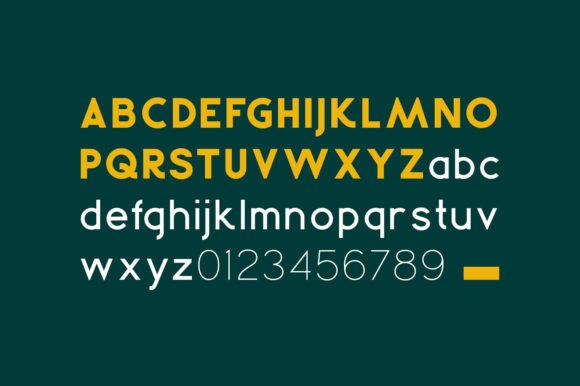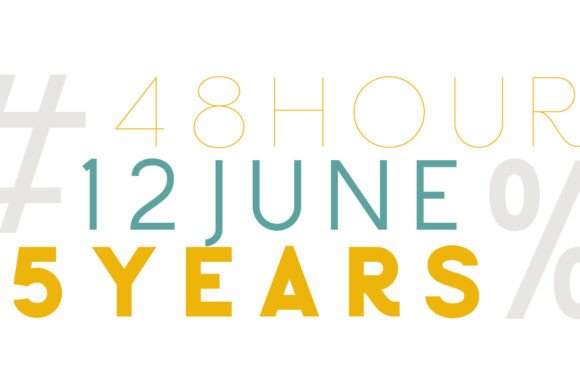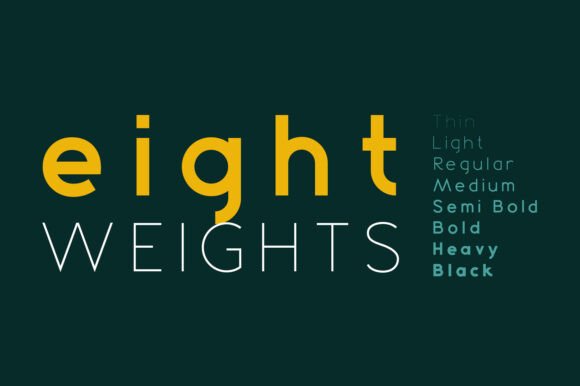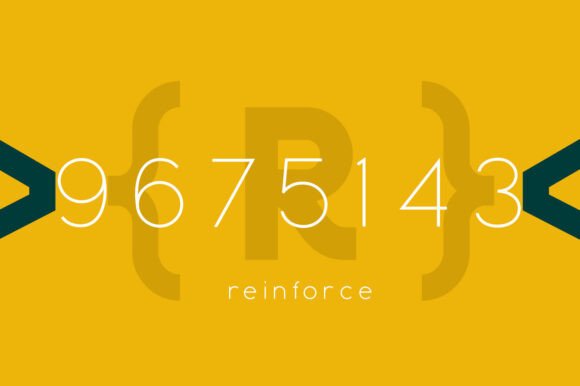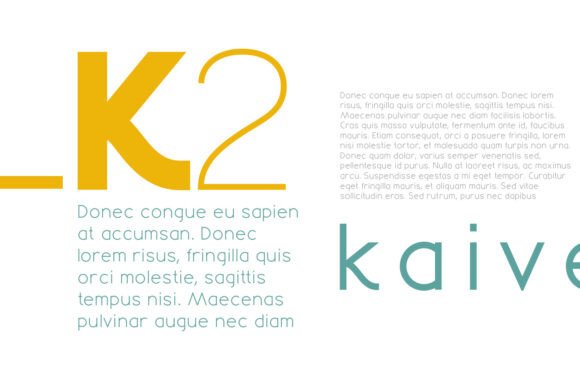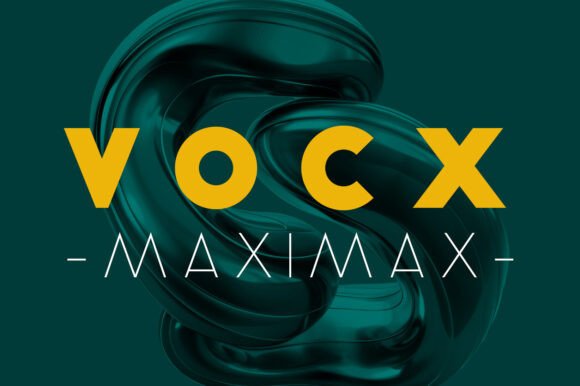
Introducing Arkinven: The Ultimate Sans Serif Font for Modern Designers
In the world of typography, fonts play a crucial role in shaping the visual identity of a brand, product, or service. For designers and crafters, finding the perfect font that embodies the desired aesthetic and message can be a daunting task. However, if you’re looking for a clean, stylish, and versatile sans serif font that makes a bold impression, look no further than Arkinven.
What is Arkinven?
Arkinven is a thoughtfully designed sans serif font that exudes a sense of modernity and sophistication. Its sharp edges and geometric form make it an ideal choice for designers seeking a sleek and versatile look. Whether you’re working on digital interfaces, editorial layouts, branding, or tech-focused designs, Arkinven is the perfect companion to help you achieve your creative vision.
Key Features of Arkinven
- Clean and Minimal Aesthetic: Arkinven boasts a clean and minimalist design that ensures your message takes center stage. Its uncluttered and straightforward appearance makes it perfect for digital interfaces, where clarity and legibility are paramount.
- Sans Serif Elegance: The sans serif design of Arkinven lends it a touch of elegance and sophistication, making it suitable for high-end branding, editorial layouts, and tech-focused designs.
- Sharp Edges and Geometric Form: The font’s sharp edges and geometric form give it a distinctive edge, setting it apart from other sans serif fonts. This unique feature makes Arkinven perfect for designers seeking a bold and modern look.
- Versatility: Arkinven is an incredibly versatile font that can be used across various design applications, from digital interfaces and editorial layouts to branding and tech-focused designs.
Use Cases for Arkinven
Arkinven’s versatility makes it an excellent choice for a wide range of design projects. Here are some use cases where Arkinven shines:
- Digital Interfaces: Arkinven’s clean design and exceptional legibility make it perfect for UI/UX design, mobile apps, and website design.
- Editorial Layouts: The font’s elegant appearance and sharp edges make it suitable for editorial layouts, such as magazines, newspapers, and blogs.
- Branding: Arkinven’s modern and sophisticated design makes it an excellent choice for branding, logos, and advertising campaigns.
- Tech-Focused Designs: The font’s geometric form and sharp edges give it a tech-savvy feel, making it perfect for tech-focused designs, such as software applications, robotics, and gadgets.
Why Choose Arkinven?
With so many fonts available, why should you choose Arkinven? Here are a few compelling reasons:
- Unique Design: Arkinven’s distinctive design sets it apart from other sans serif fonts, ensuring your designs stand out from the crowd.
- Legibility: The font’s clean design and sharp edges ensure exceptional legibility, even at small font sizes.
- Versatility: Arkinven’s versatility makes it suitable for a wide range of design applications, saving you time and effort in finding the perfect font.
| Font Name | Arkinven Font |
| Author | arifpoernomo87 |
In conclusion, Arkinven is a clean, stylish, and versatile sans serif font that’s perfect for designers and crafters seeking a bold and modern look. Its sharp edges, geometric form, and exceptional legibility make it an excellent choice for digital interfaces, editorial layouts, branding, and tech-focused designs. With Arkinven, you can elevate your designs and create a lasting impression on your audience.